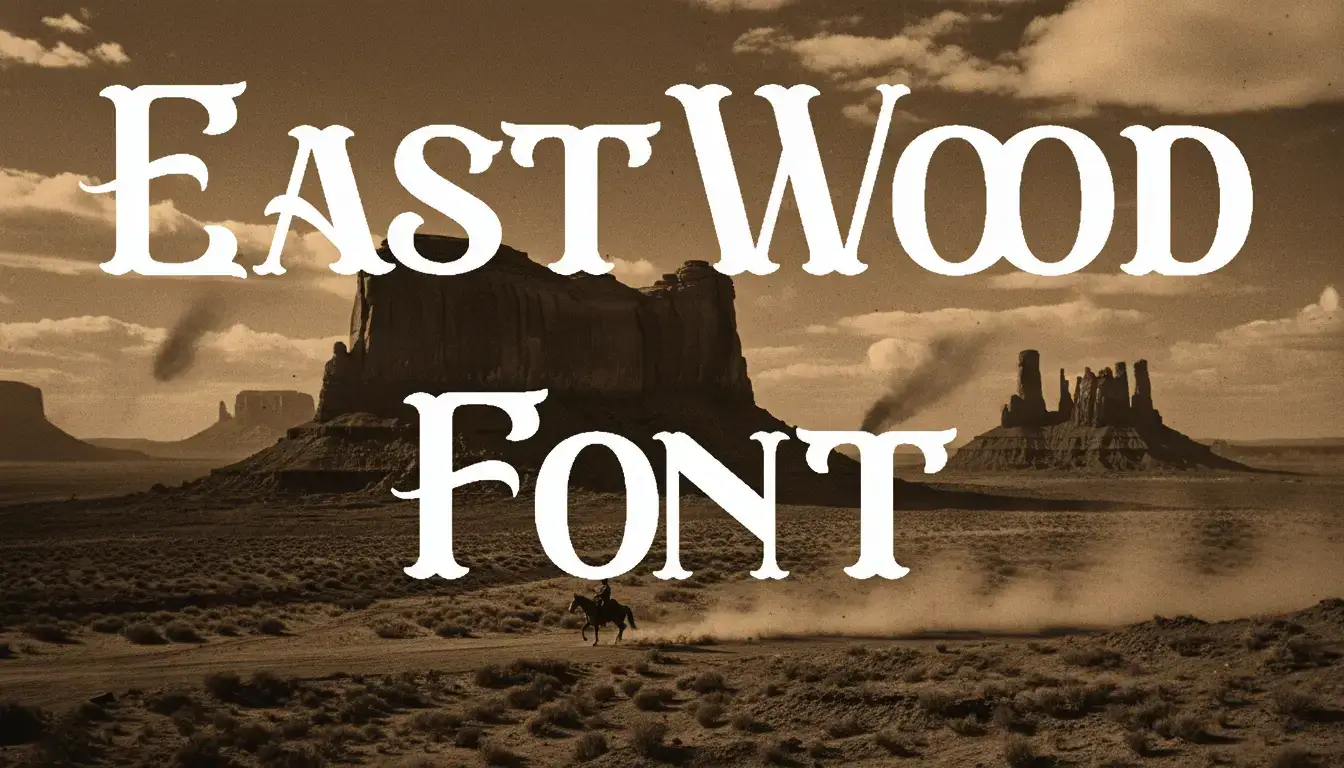
EastWood Font
EastWood
EastWood is a Western font made by Kong font. Its letters feel straight out of a cowboy movie, sturdy and full of old-west character. You get two styles in one free ZIP, and the preview above lets you test each one before you download.
What You Can Type With EastWood
You get every letter from A to Z in both cases and all the numbers from 0 to 9, which means EastWood can handle full sentences, dates and prices. Everyday marks like &, !, ? and @ are there too. Thanks to its accented letters, it also works for Spanish, French, German, Portuguese and Italian, not just English.
Where EastWood Works Best
Designers usually reach for fonts like EastWood when they're making rodeo posters, saloon signs and country music flyers. Try it in brown, rust or cream on a paper texture for the full old-west look. Because the family has more than one style, you can mix them in a single design for headings, subheadings and highlights.
Does EastWood support accented letters?
Yes. EastWood includes the accented letters needed for Spanish, French, German, Portuguese and Italian, so it works for more than just English.
What fonts pair well with EastWood?
A sturdy slab serif or a simple serif works well for the smaller text.